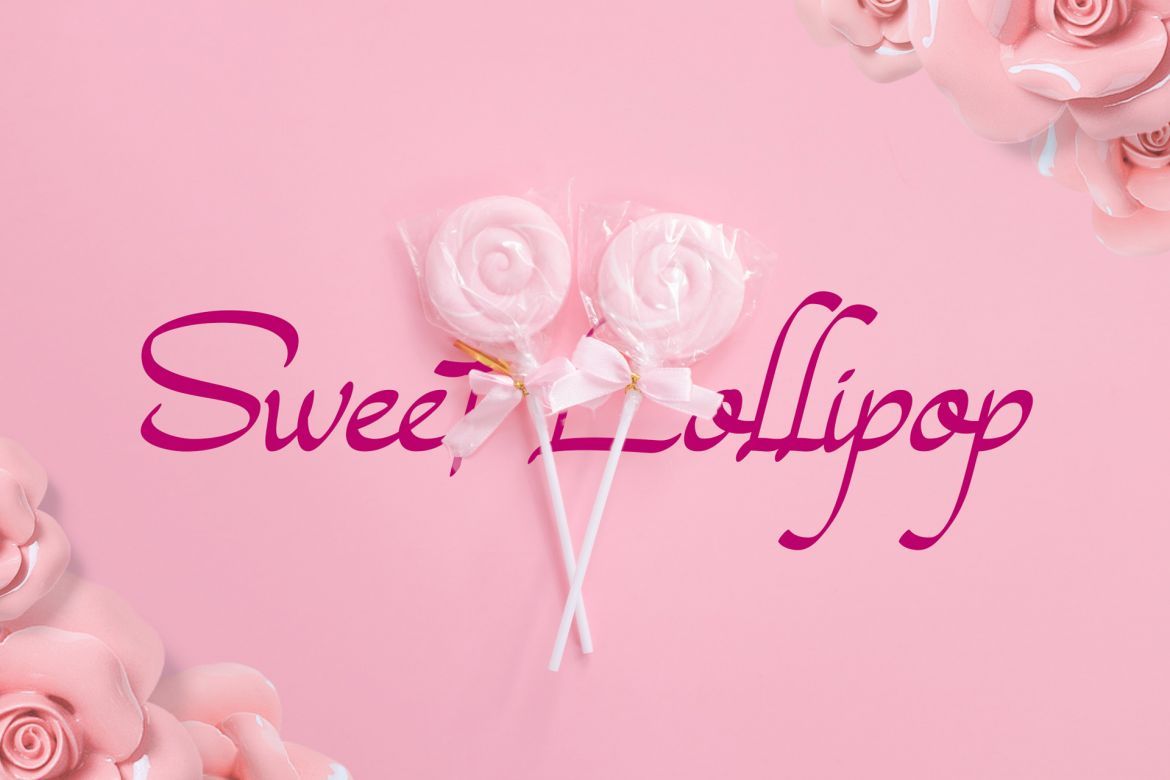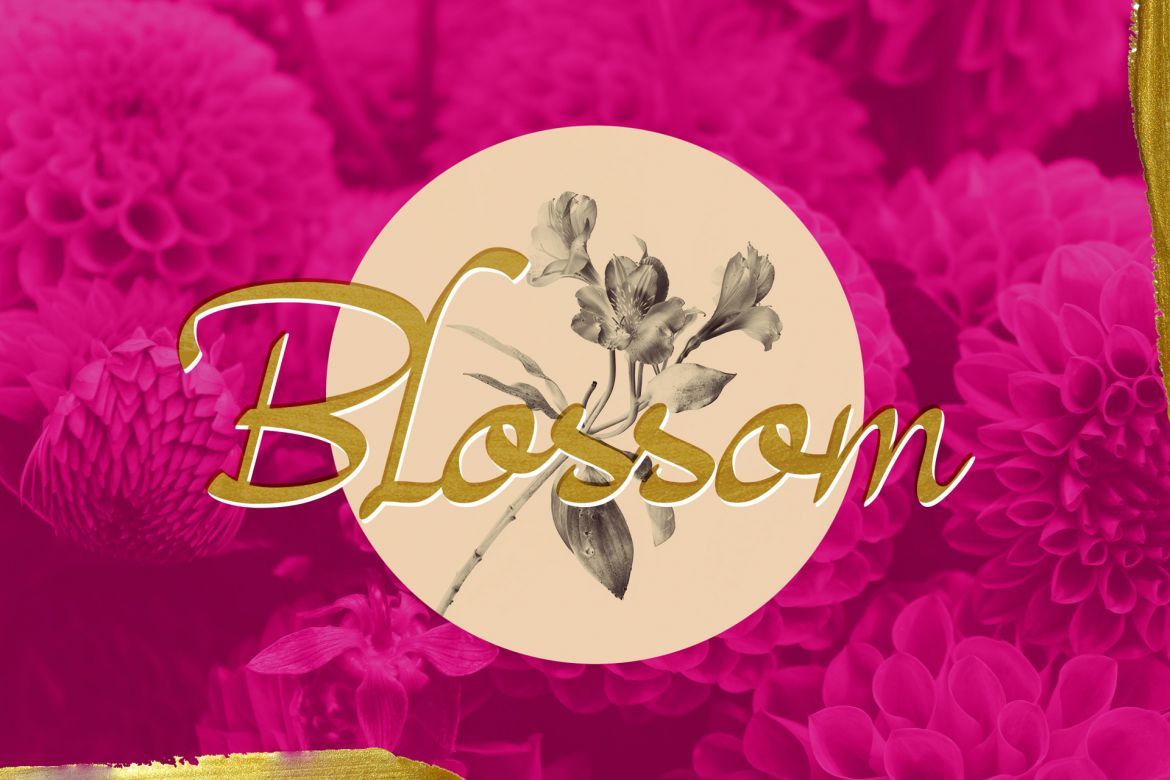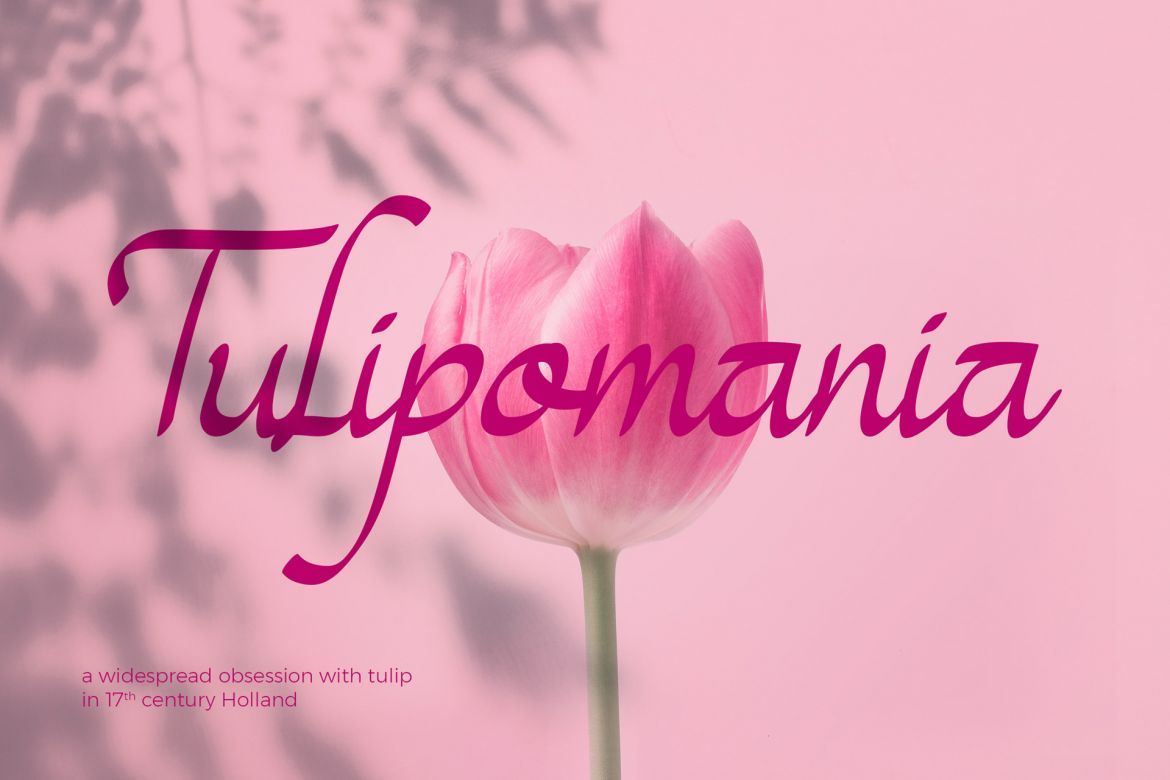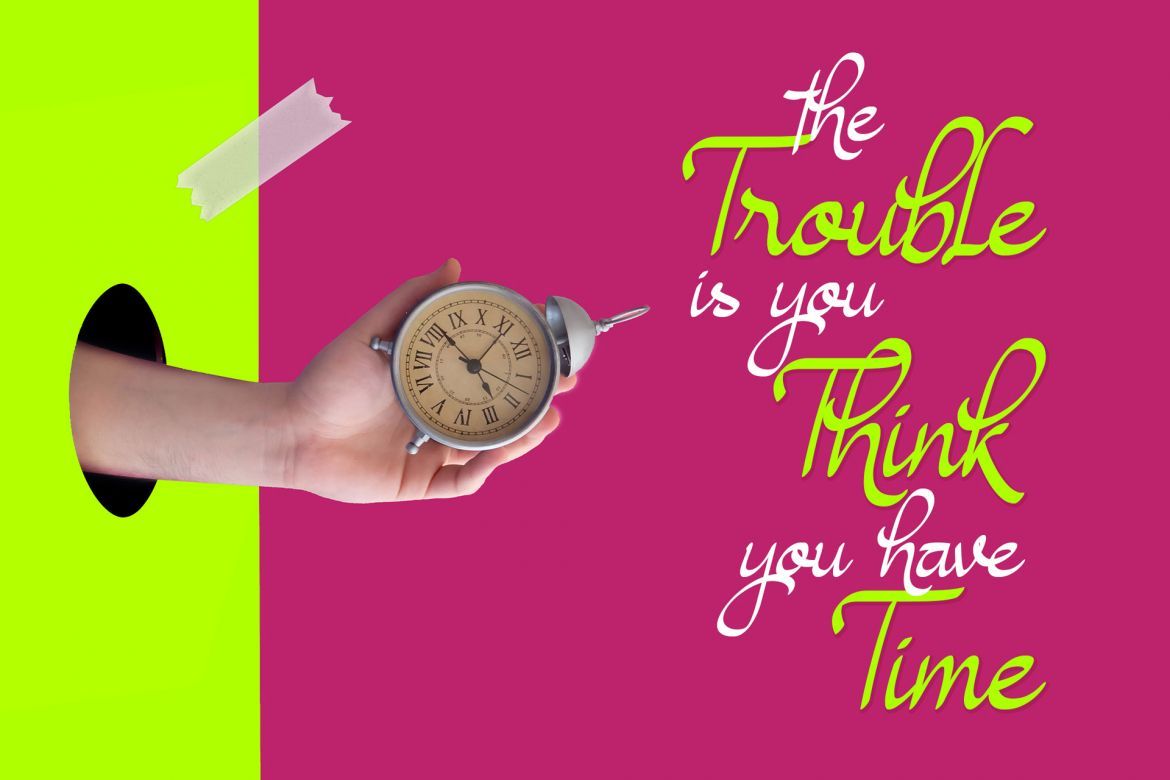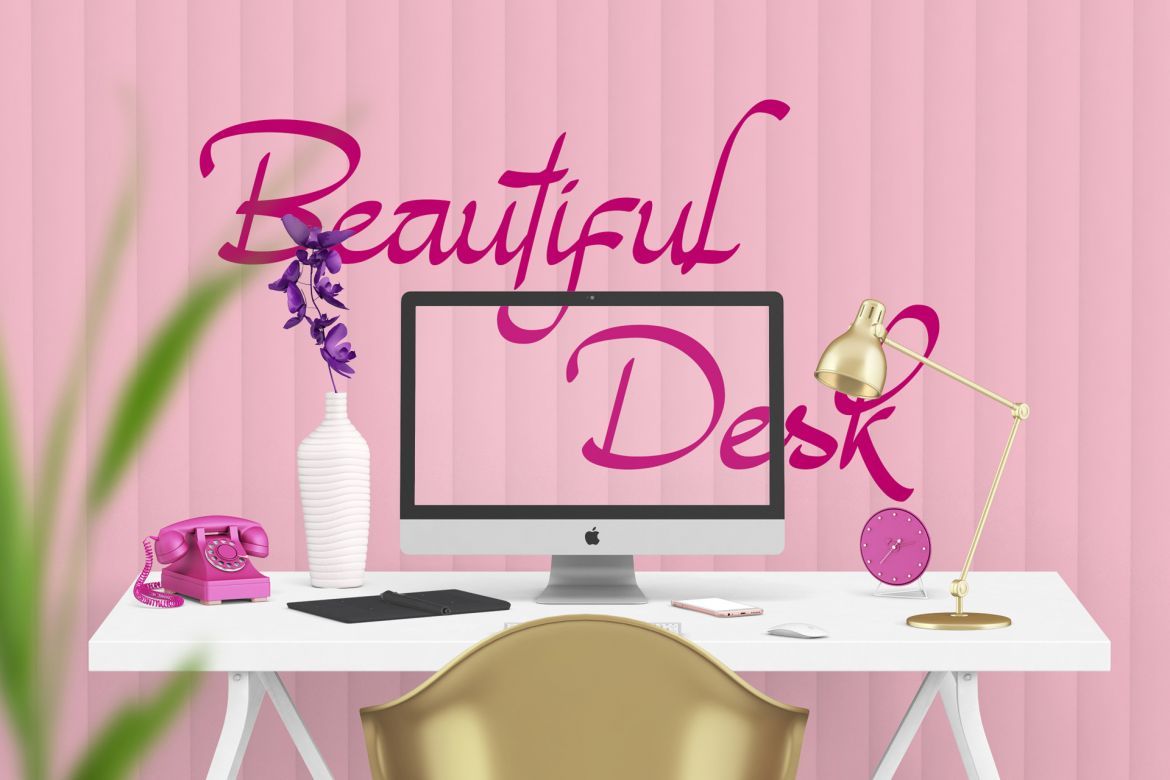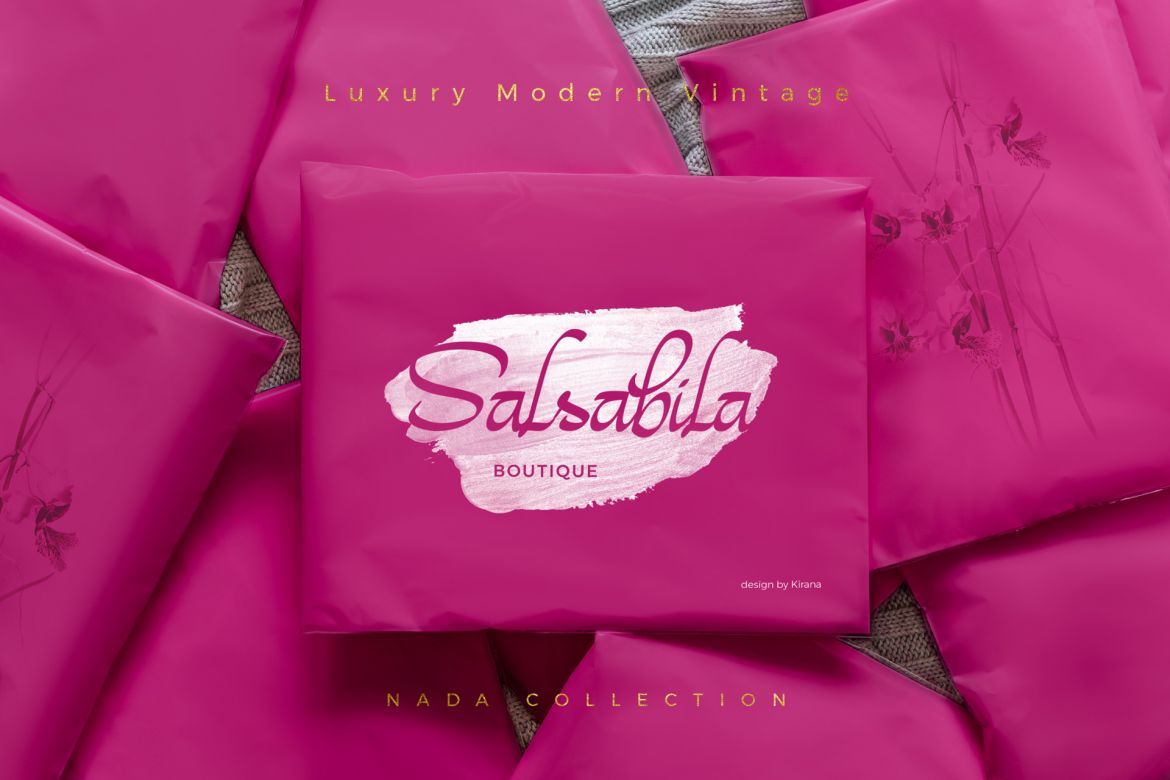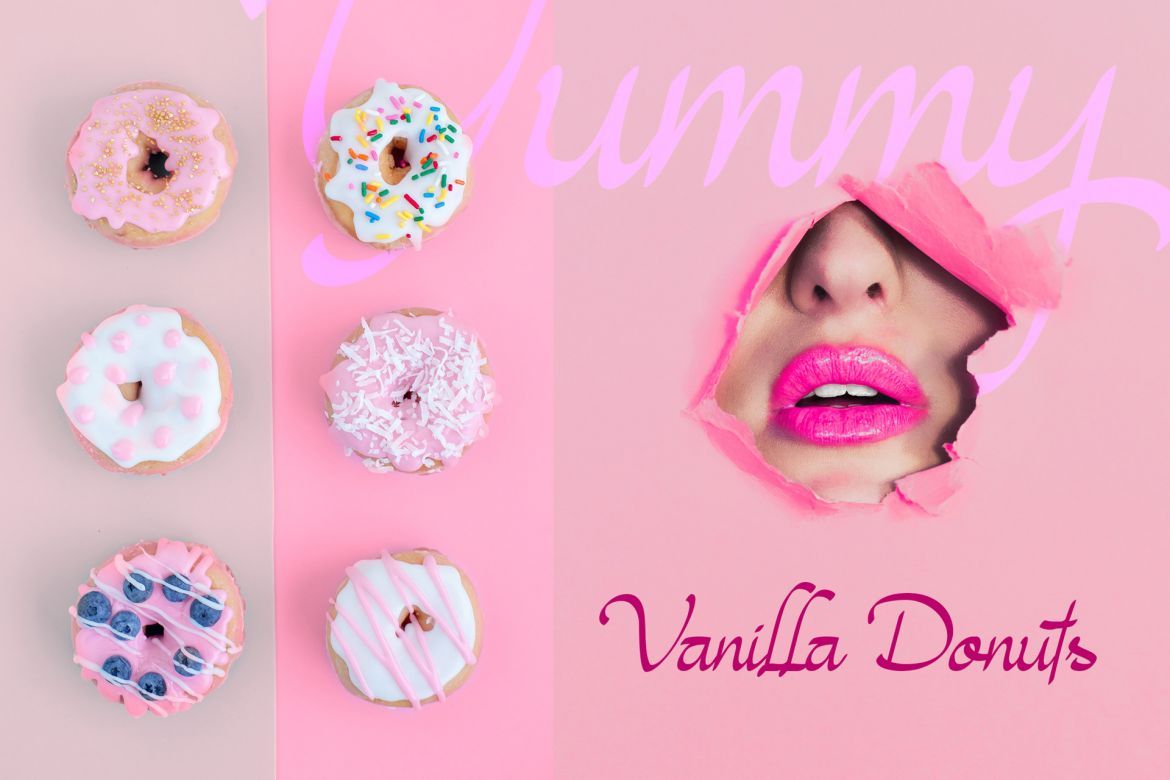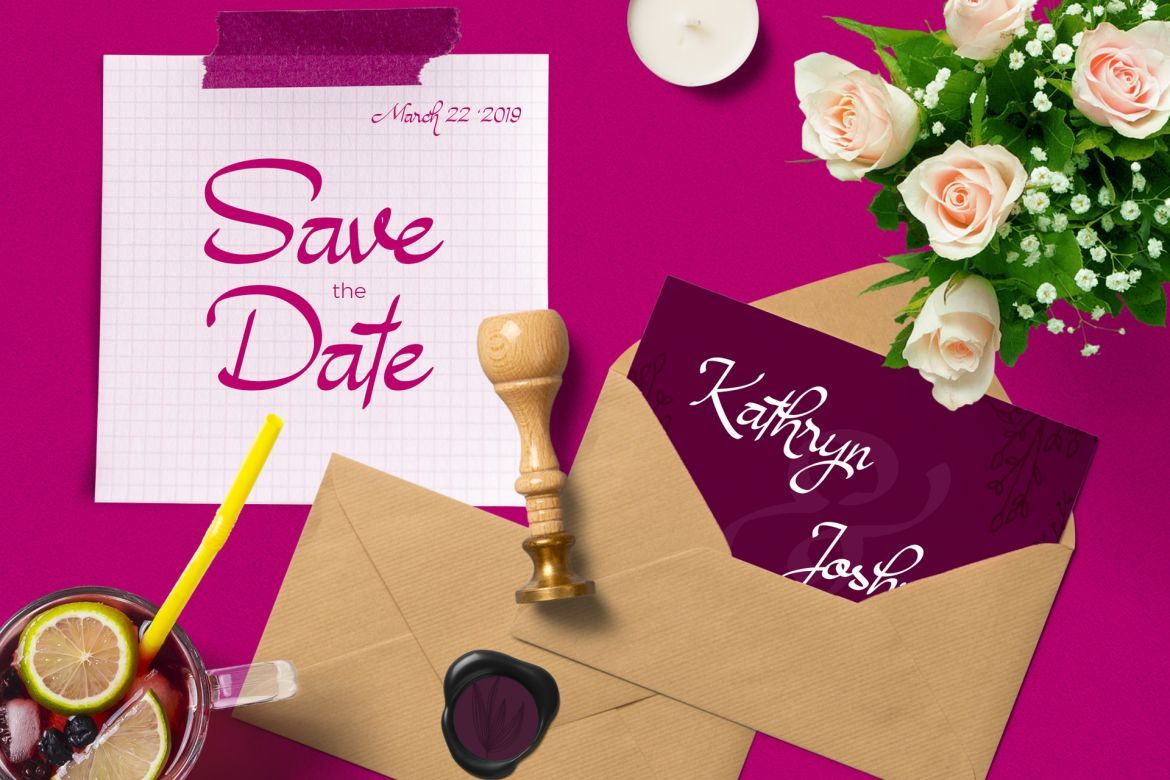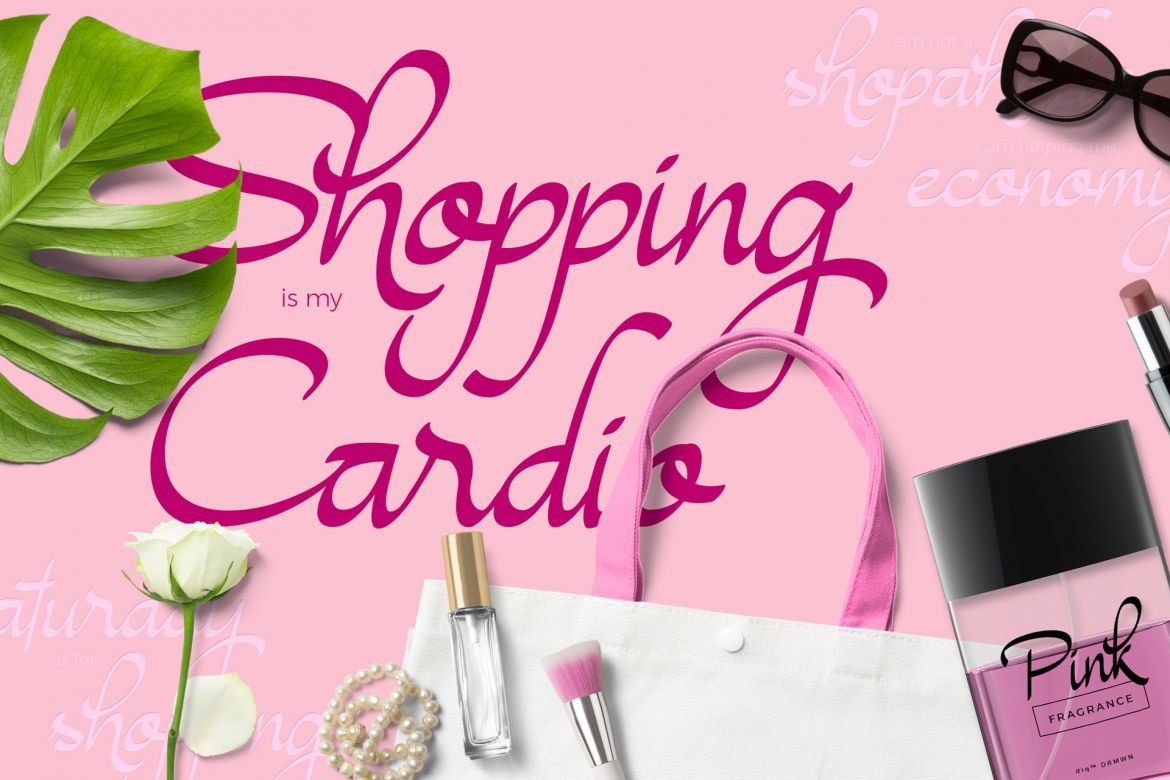
Magenta Rose Font
We're proud to introduce Magenta Rose Font
Magenta Rose – Hand lettering script font with an elegant feel. Comes with upper and lowercase characters, punctuation, numerals, and supports international languages. Also try the characters { } [ ] and some standard ligatures & alternates
Magenta Rose perfectly for magazines, books, wedding invitations, product labels, print, branding, social media post, etc Every letter was carefully crafted and connections are smooth.
• alternate, ligature, number, punctuation & symbols
• multi language support
• sensual font